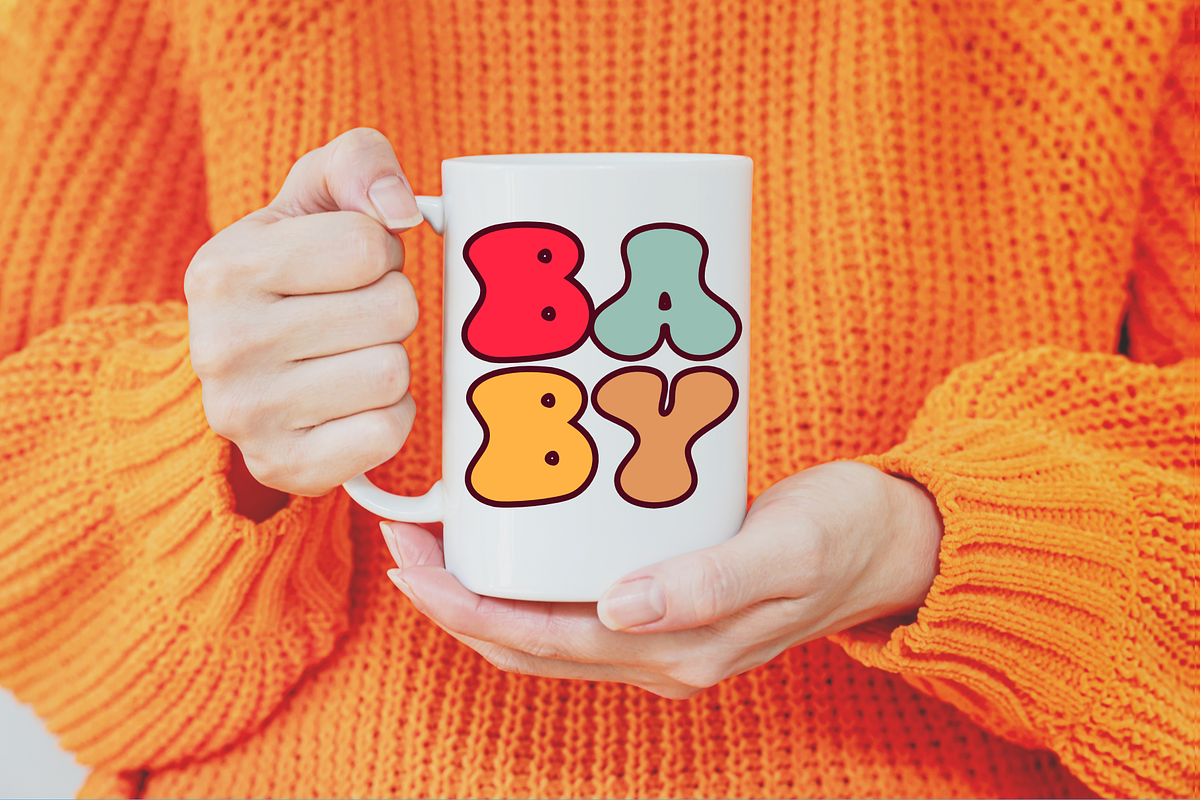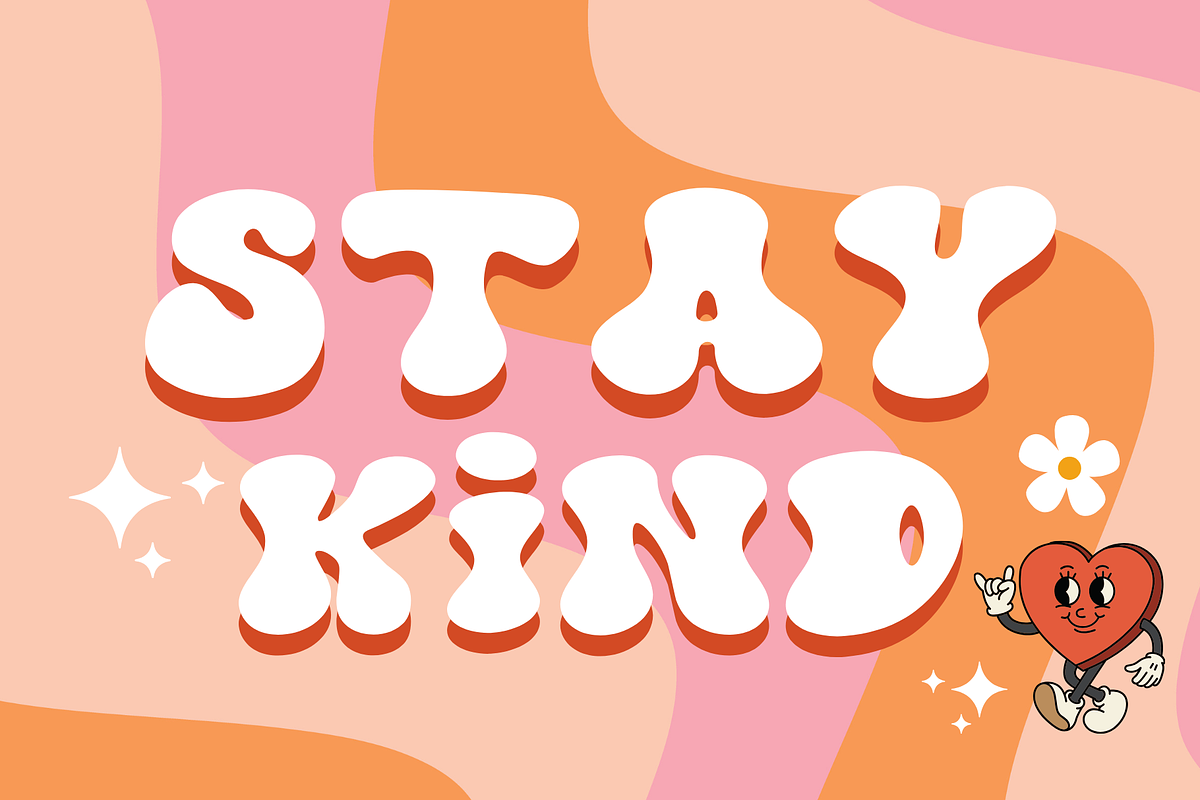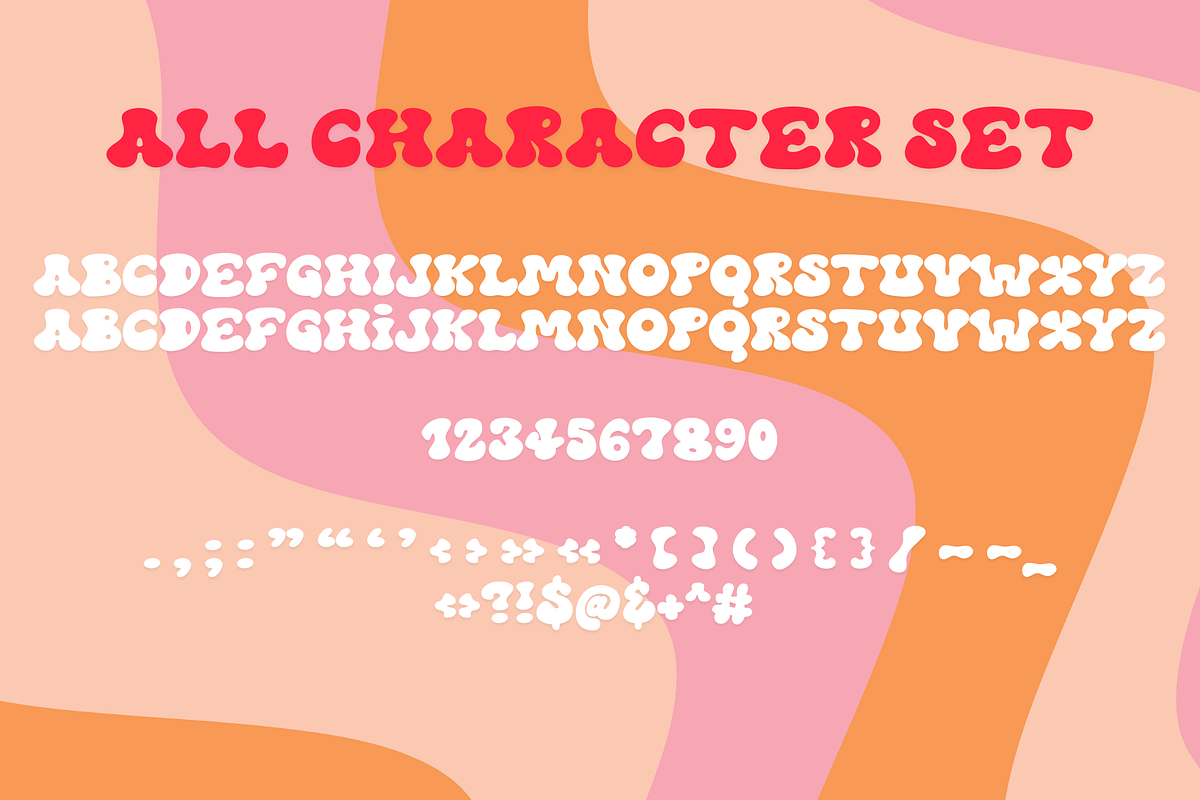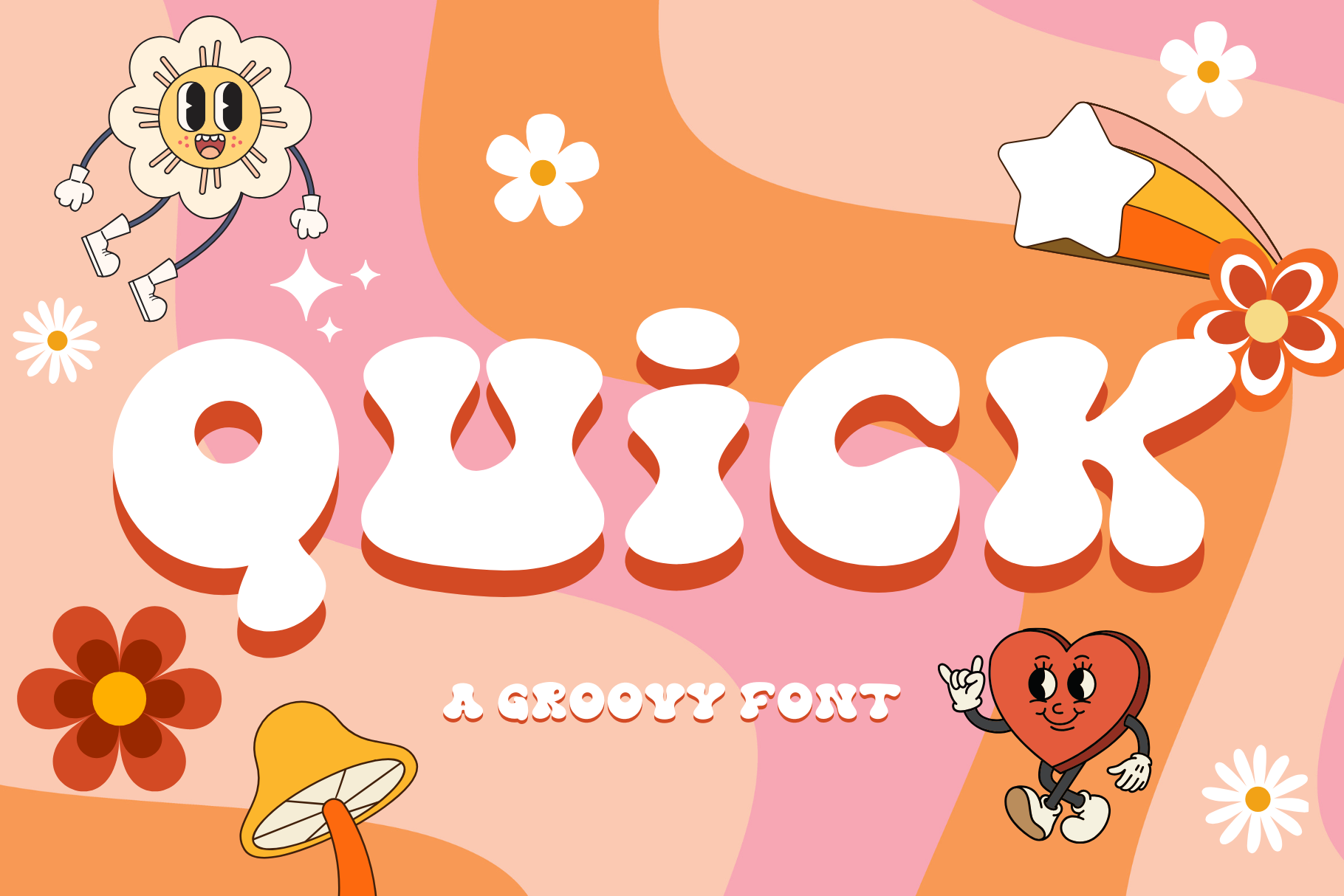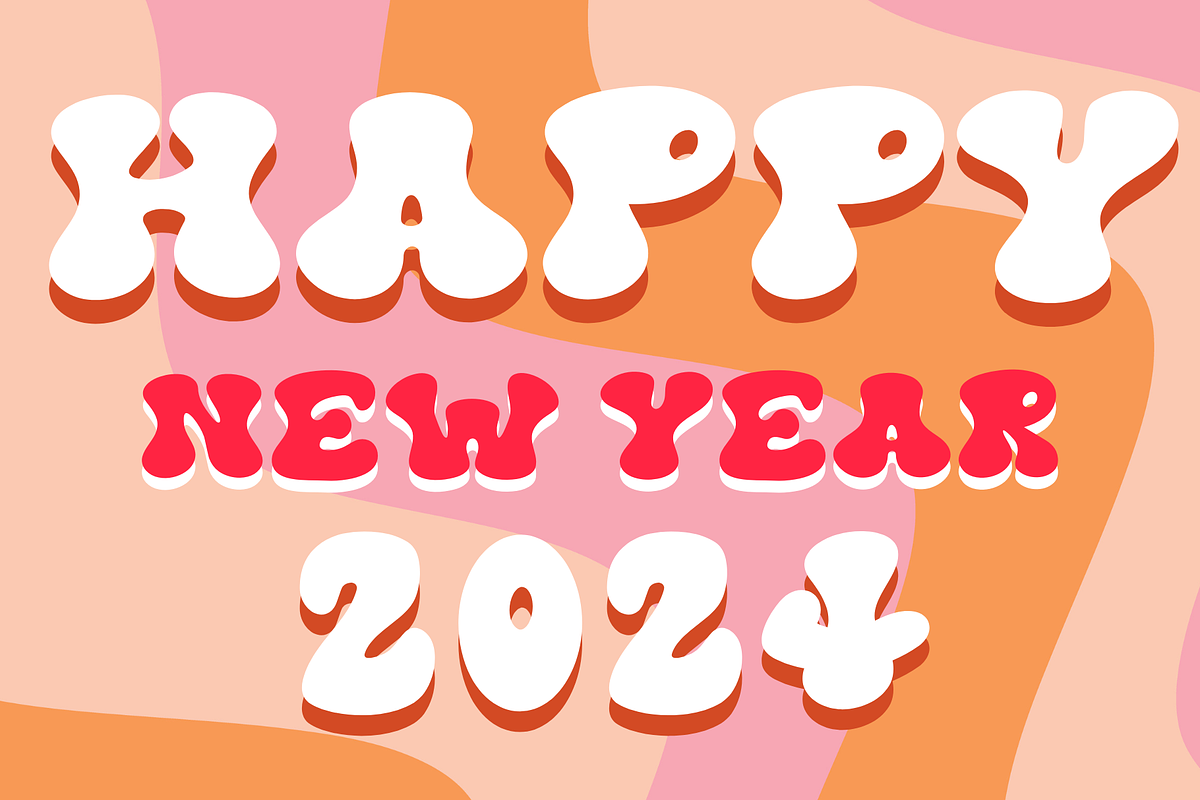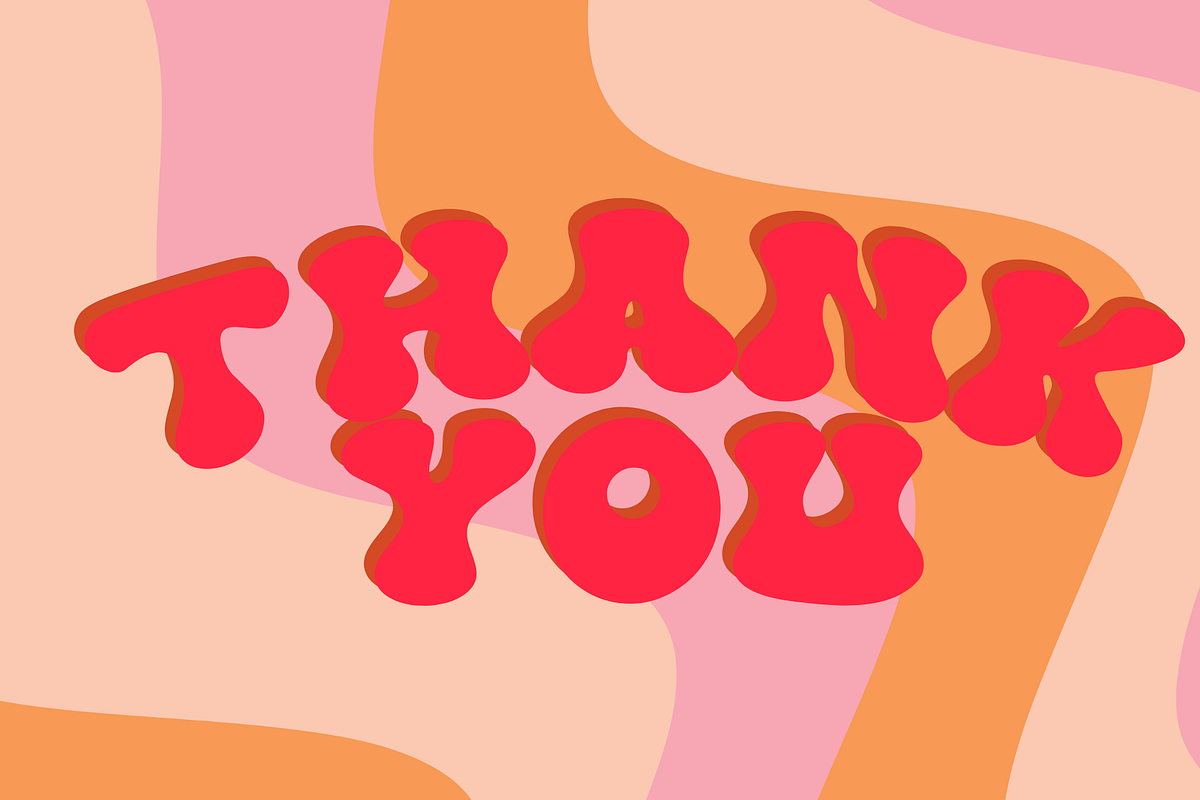
Quick is a retro groovy display font
Quick is a retro groovy display font. It embodies playfulness and authenticity and is the perfect choice for all your favorite projects such as blog posts, logos, branding, ads, invitations, greeting cards, planners, photo albums, decorations, and more. Add it to any of your designs, and enjoy the results!